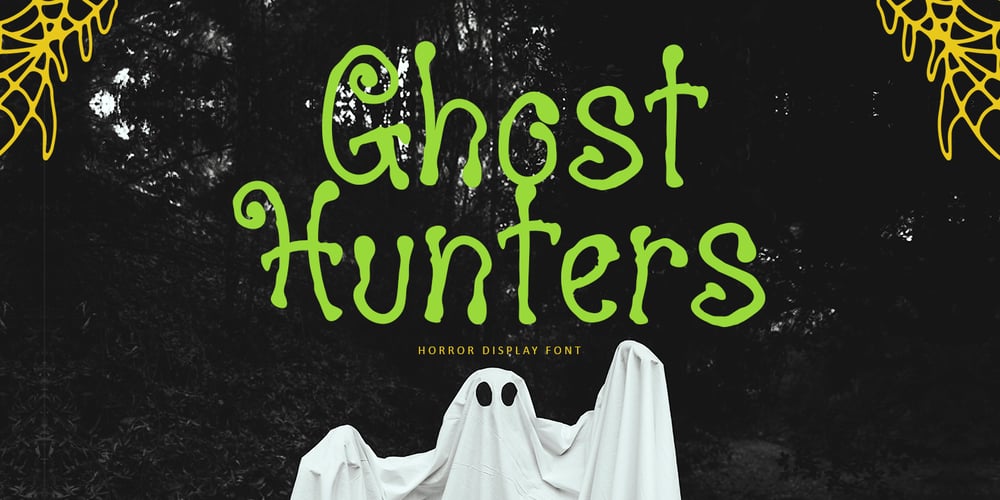
Ghost Hunters Font Family was designed by Bayu Suwirya and published by Illushvara. Ghost Hunters contains 1 styles and family package options. Ghost Hunters is a display brush spooky font with horror halloween consept. The strokes alternates make this font outstanding and looks like grunge brush line very great for logotype and any promotion about Halloween Seasons. This type of font perfectly made to be applied especially in headline, apparel logo, food logotype, fashion, poster film, music, invitations or greeting cards or any type of advertising purpose. This font support Multilingual Languages.FEATURES :UppercaseLowercaseNumberPunctuationMultilingualPUA EncodeOpentypeAlternatesIf you have any question, don’t hesitate to contact me. Happy Designing !!!